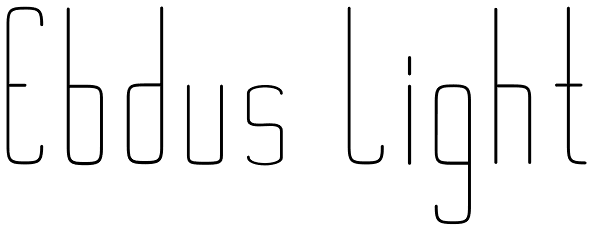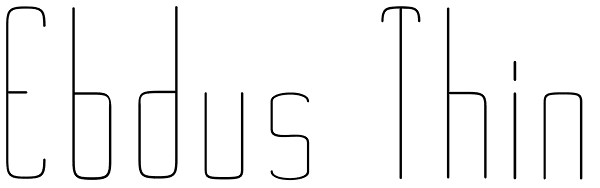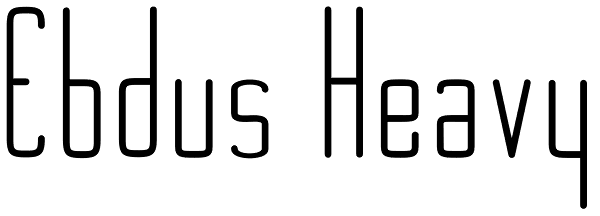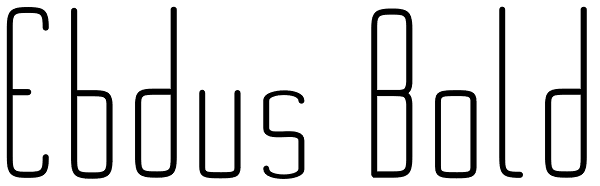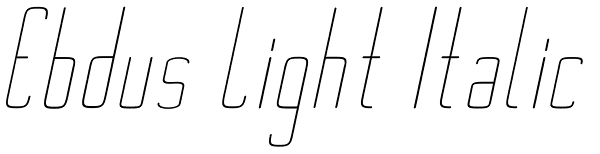
Ebdus
Ebdus is a thin, modern, lightweight font, occasionally a little gawky and tall, sometimes a little plump and rounded. The font is available in 5 weights from Thin to Heavy but they all lean towards all things anorexia. It looks as good in copy as...